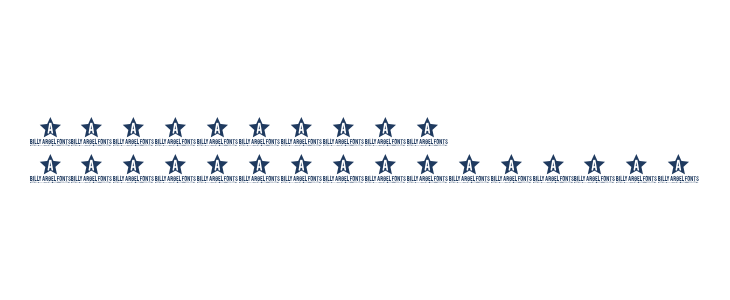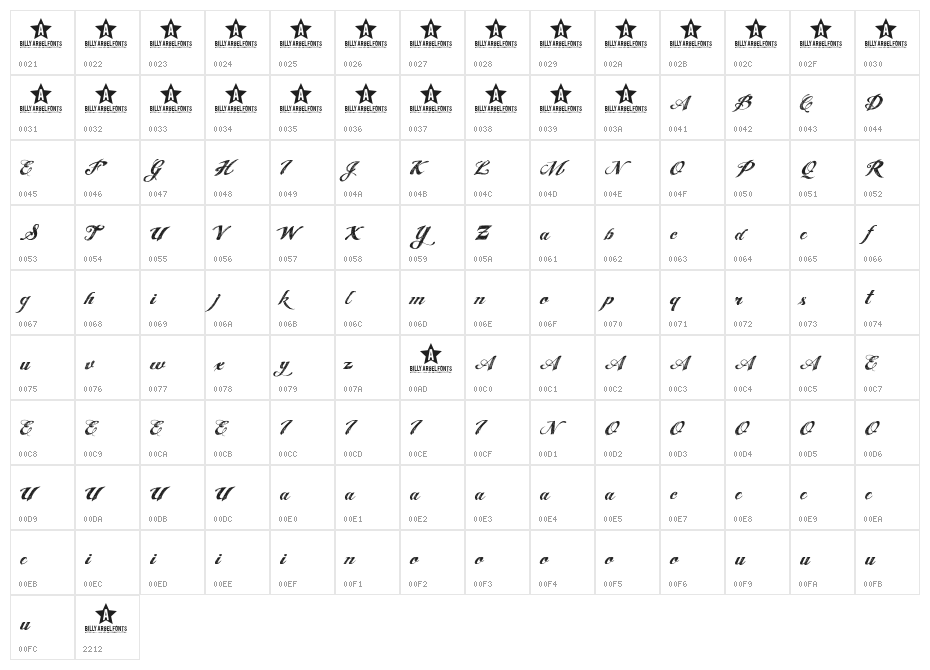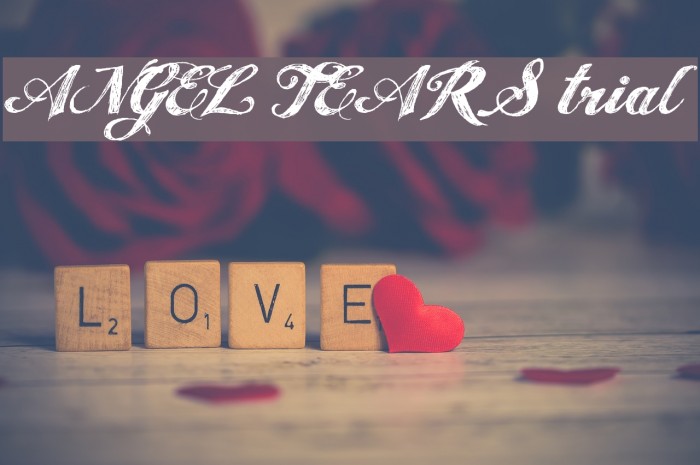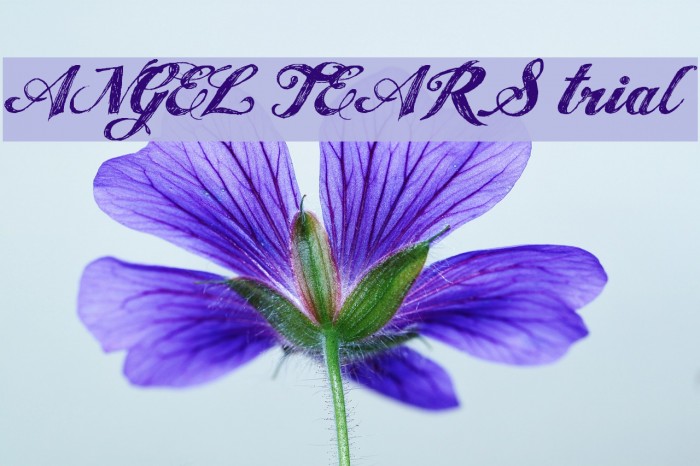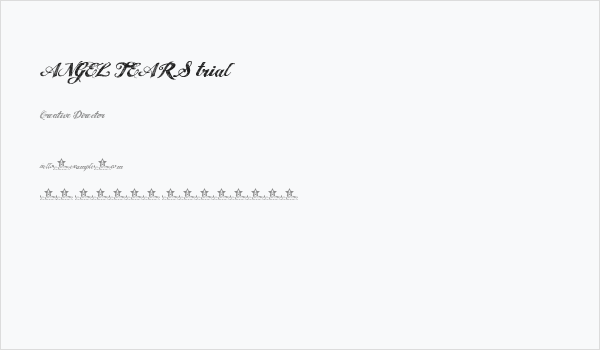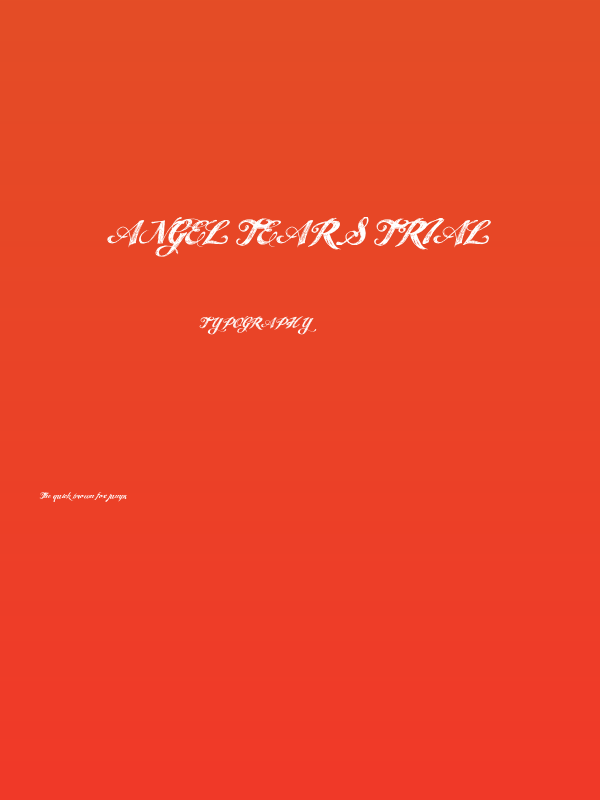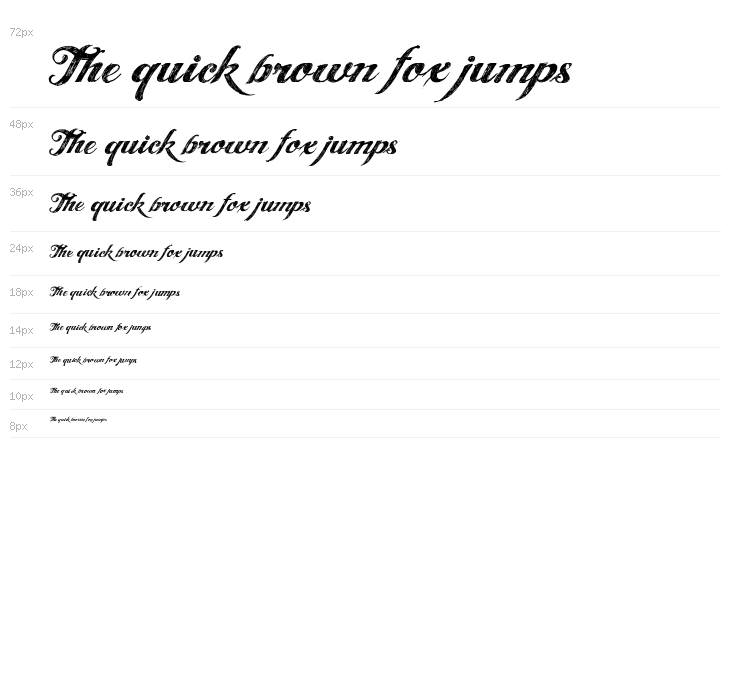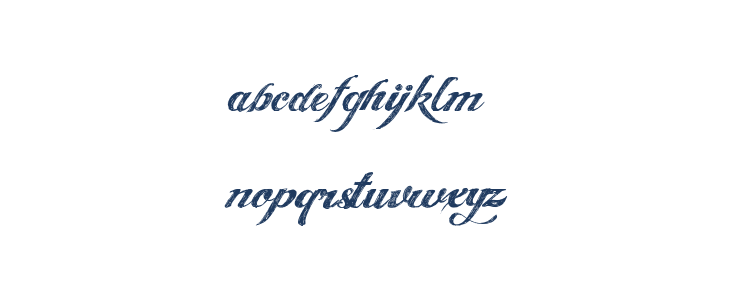
ANGEL TEARS trial Font
ANGEL TEARS trial Description
This font features an elegant and intricate script style, characterized by its flowing, cursive letterforms. The uppercase letters are bold and ornate, with elaborate swashes and flourishes that give a sense of movement and sophistication. The lowercase letters maintain a consistent style, with smooth curves and a slightly condensed appearance. The numbers and special characters are designed to match the overall aesthetic, ensuring a cohesive look. This font's high contrast between thick and thin strokes adds to its dramatic and eye-catching appeal, making it suitable for decorative purposes.
Use CaseLogos, Headlines, Invitations
Proposed ProjectsIdeal for wedding invitations, luxury branding, greeting cards, and decorative headlines.